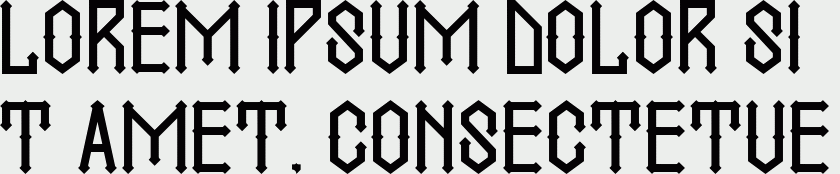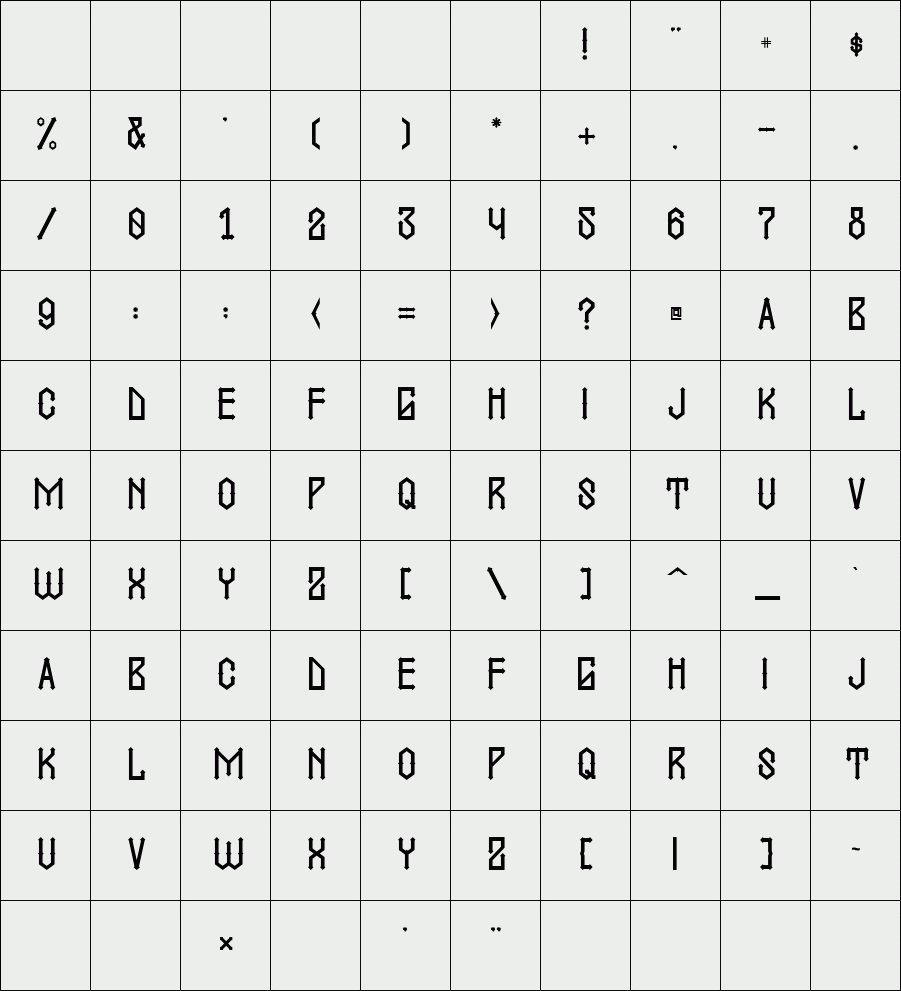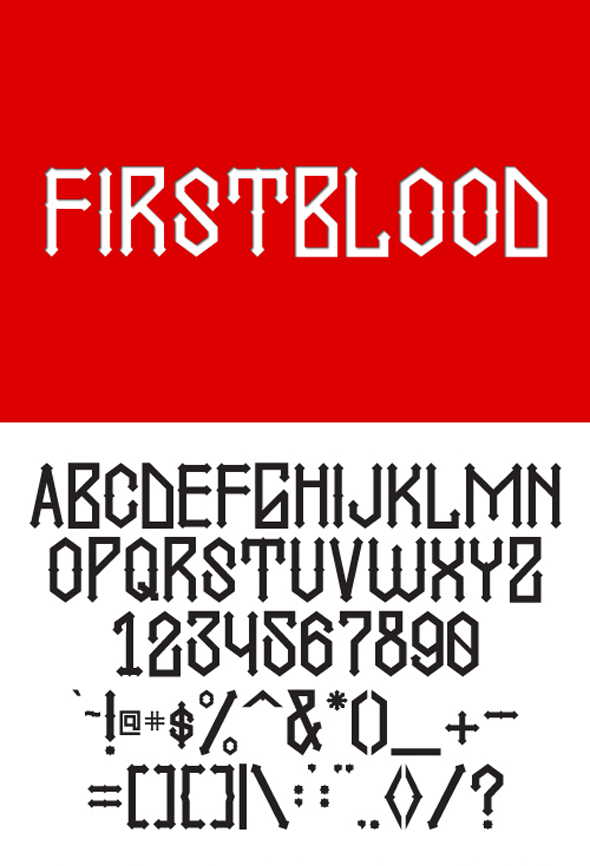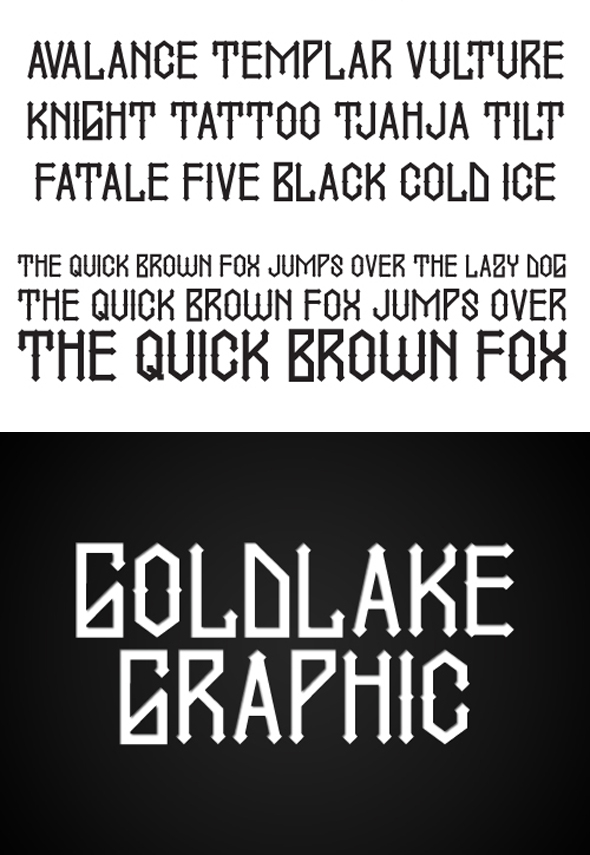
GL Firstblood
GL firstblood is a modern blackletter font with unique characteristics, inspired by "cholo" script tattoo. It's suitable with t-shirt design needs, also many designer use this type of font for gigs poster, apparel, etc. Installation is very easy and of course it's easy to use.